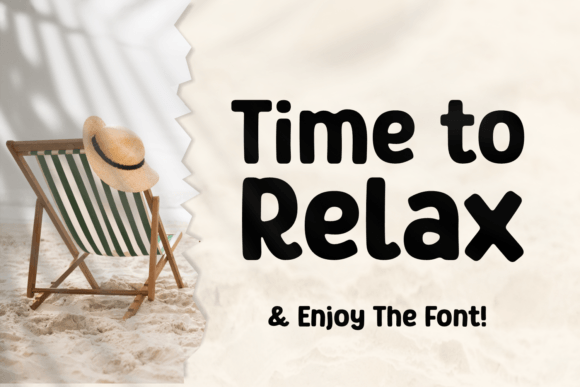
Immerse yourself in a font that exudes tranquility and serenity, inviting you to escape the mundane and embrace moments of relaxation. Meet "Time to Relax," a captivating display font that transports you to a realm of calmness and ease. Let its graceful curves and soothing letterforms lull you into a state of tranquility as you embark on your creative journey.
Whether you're crafting a captivating book cover, designing a soothing logo, or seeking a touch of serenity for your project, "Time to Relax" is your perfect companion. Its elegant strokes and gentle contours instill a sense of peace, making it the ultimate choice for conveying tranquility and composure.
As you navigate the vast digital world, let "Time to Relax" be your guide. Its calming aura will soothe the senses and engage your audience, creating an unforgettable experience. Embrace the serenity and let your creativity flow freely with this soothing display font.
Immerse yourself in a font that speaks to the soul. "Time to Relax" is the perfect choice for designers seeking to communicate tranquility and calm. Its harmonious curves and peaceful presence will make your designs stand out, leaving a lasting impression that lingers in the minds of your audience.